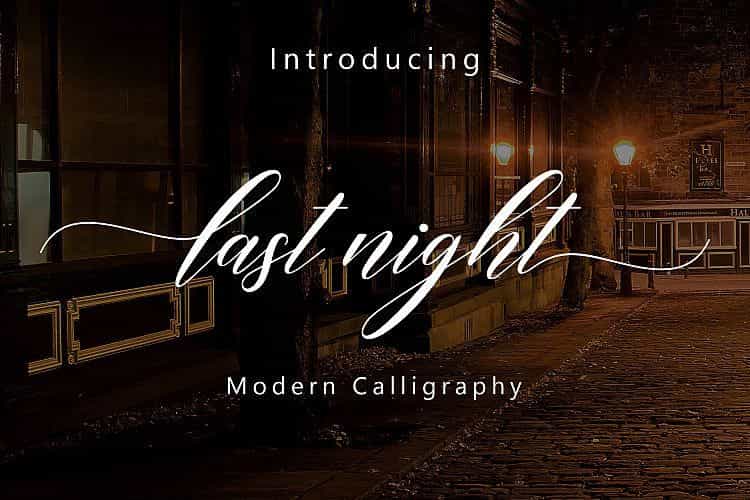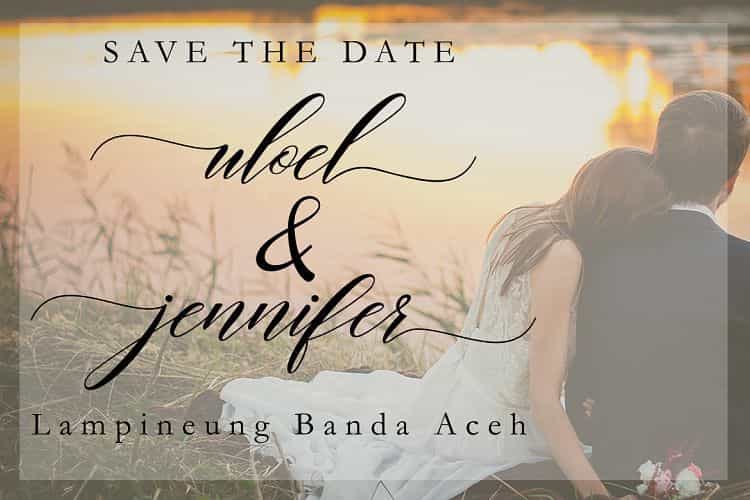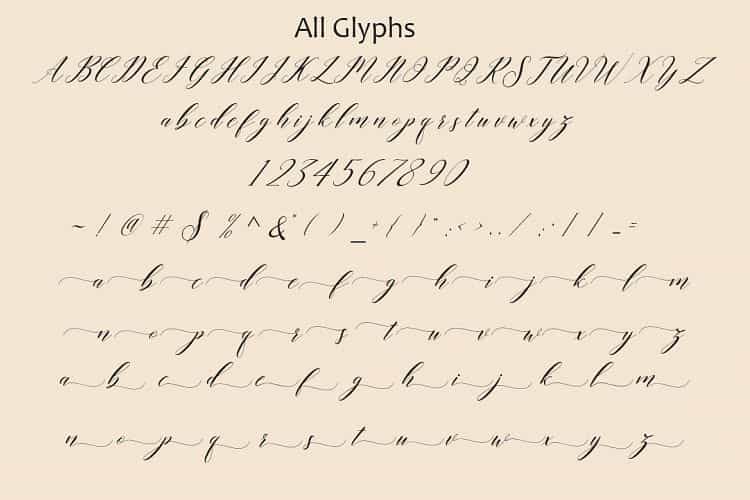
Discover Last Night Script Font, part of the Calligraphy collection—a versatile and unique font perfect for adding a personal touch to your projects. Download it for free and enjoy crafting designs with style, from invitations to social media posts. This font is available exclusively for personal use, giving you the freedom to create without limits. Unlock your creativity with Last Night Script Font today!
Last Night Font – Script calligraphy a beautiful new font! This font is for you if you are looking for a touch of elegance to design your projects next with perfect results and amazing outcomes. Last Night was designed and shared by Takiy.